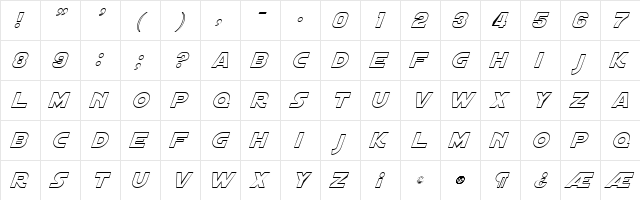
Distant Galaxy Outline Italic
Design Context for Distant Galaxy Outline Typeface
Distant Galaxy Outline brings ornamental detail and strong personality to headlines and identities, where visual impact matters more than quiet functionality. Its italic angle brings a sense of urgency and motion to the letterforms.
Font Pairing: Pair with a clean neutral sans-serif for body copy to let Distant Galaxy Outline's character lead without overwhelming the composition.
Pro Tip: Treat Distant Galaxy Outline as the centrepiece of your typographic hierarchy. One strong heading set in a decorative face can carry an entire layout.